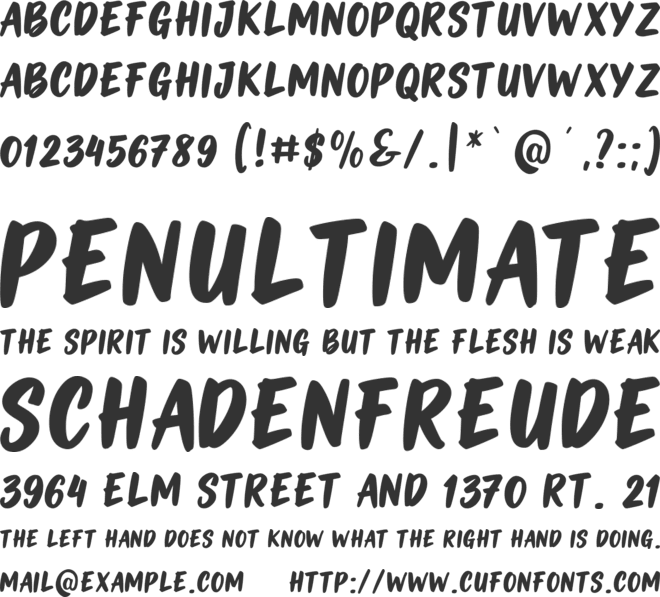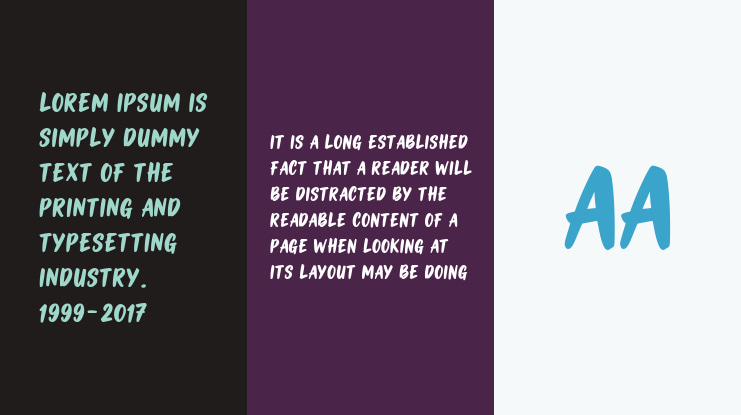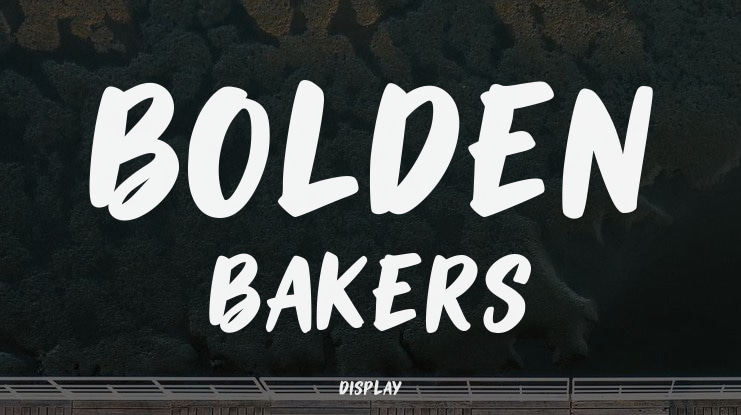
Bolden Bakers Font
Bolden Bakers is a bold and energetic display font with a handcrafted brush style full of personality. Each letter is designed with a natural and expressive touch, making it perfect for bakery themes, food packaging, logos, posters, and eye-catching titles.
This font features all uppercase letters, ensuring strong readability and a standout look in any design. It’s a great choice for designers who want to add a fun, warm, and professional vibe to their projects.
Use Bolden Bakers to create branding, product labels, inspirational quotes, or delicious-looking display designs that grab attention instantly!